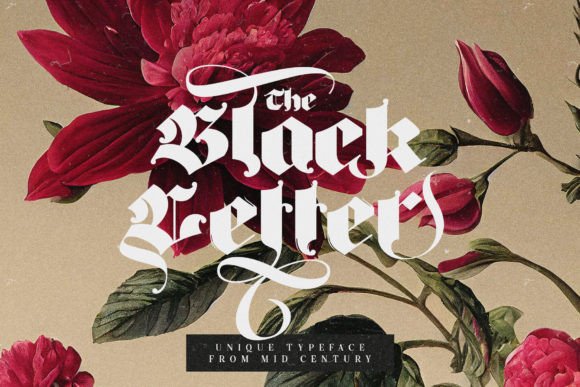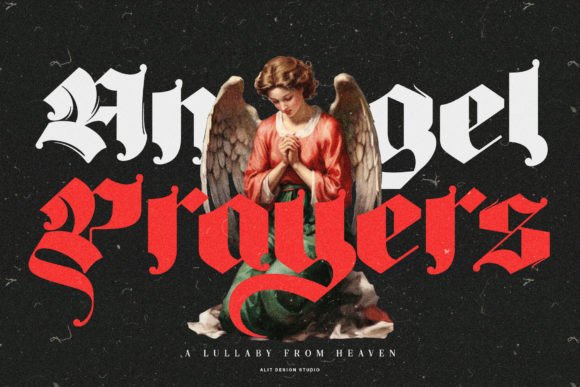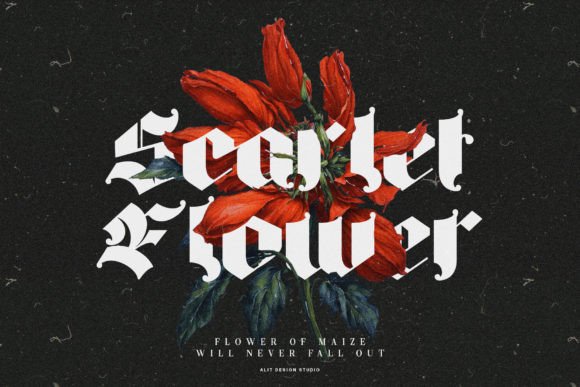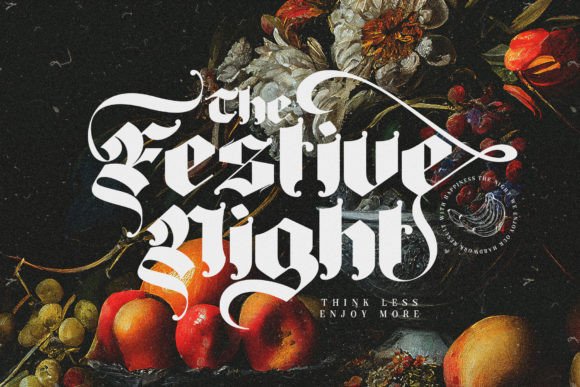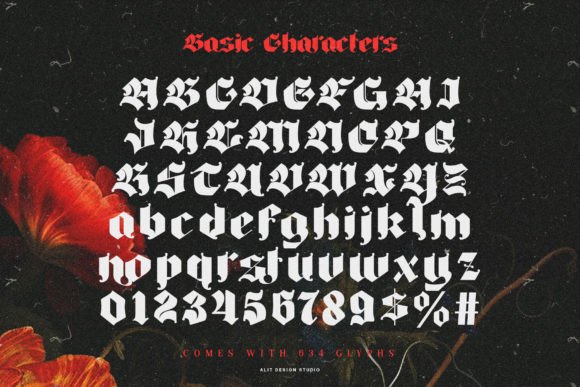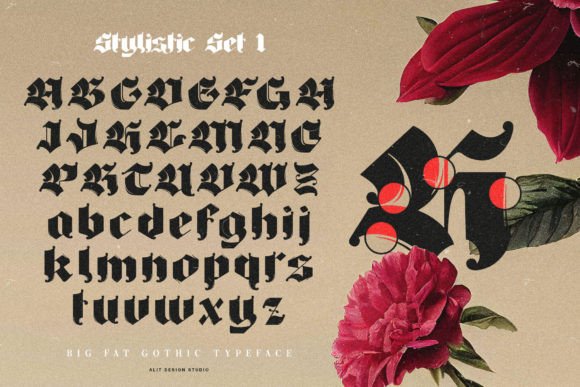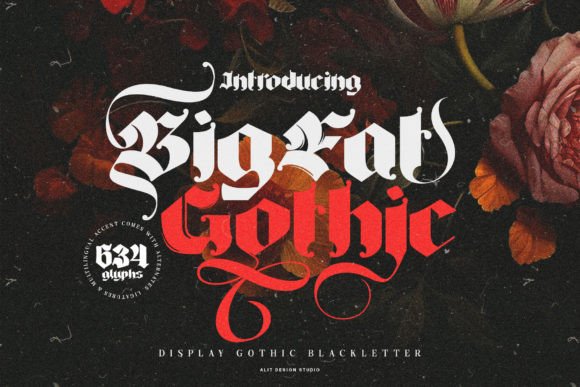
Introducing Big Fat Gothic: The Ultimate Font for Making a Statement
In the world of typography, fonts play a crucial role in conveying the tone and personality of a brand or design. When it comes to making a bold statement, few fonts can match the impact of Big Fat Gothic. This robust Blackletter font is designed to command attention, making it perfect for projects where you want your text to stand out and demand notice.
The Power of Big Fat Gothic
Big Fat Gothic is a font that exudes confidence and strength, thanks to its thick and weighty strokes. The bold and robust design of this font makes it ideal for titles, headlines, and branding materials, where you want to make a lasting impression on your audience. Whether you’re creating a logo, poster, or website, Big Fat Gothic provides the perfect combination of boldness and sophistication.
The Intricate Detailing of Big Fat Gothic
One of the standout features of Big Fat Gothic is its intricate detailing. The font’s Blackletter theme is characterized by ornate and decorative strokes, which add a touch of sophistication to any design. This level of detail ensures that your text leaves a lasting impression on your audience, making it perfect for projects where you want to convey a sense of luxury, elegance, or refinement.
Beyond Boldness: The Versatility of Big Fat Gothic
While Big Fat Gothic is undoubtedly a bold and attention-grabbing font, it’s also surprisingly versatile. The font comes packed with swashes, alternatives, and ligatures, which allow you to customize your text and add flair and personality to your designs. This level of flexibility makes Big Fat Gothic perfect for a wide range of projects, from logos and posters to websites and social media graphics.
Customization Options Galore
With Big Fat Gothic, you have the freedom to experiment with different styles and variations. The font’s swashes and alternatives allow you to add a touch of elegance or whimsy to your text, while the ligatures provide a convenient way to connect letters and create a more fluid, natural look. Whether you’re a designer, craft, or DIY enthusiast, Big Fat Gothic provides the perfect combination of creativity and flexibility.
Big Fat Gothic is a font that’s specifically designed with designers and crafters in mind. Whether you’re working on a client project or creating something for your own brand, this font provides the perfect combination of style, sophistication, and creativity. With Big Fat Gothic, you can:
- Create stunning logos and branding materials that make a lasting impression
- Design eye-catching posters and flyers that grab attention
- Develop unique and engaging website content that stands out from the crowd
- Produce beautiful and intricate craft projects, such as handmade cards and invitations
In conclusion, Big Fat Gothic is a font that’s sure to make a statement. With its bold and robust design, intricate detailing, and versatility, this font is perfect for designers, crafters, and DIY enthusiasts who want to add a touch of elegance and sophistication to their projects. Whether you’re working on a logo, poster, website, or craft project, Big Fat Gothic provides the perfect combination of style, creativity, and flexibility. So why wait? Download Big Fat Gothic today and start making a statement with your text!
Key Features of Big Fat Gothic
- Bold and robust Blackletter design
- Thick and weighty strokes for maximum impact
- Intricate detailing for added sophistication
- Packed with swashes, alternatives, and ligatures for customization
- Perfect for titles, headlines, and branding materials
- Ideal for designers, crafters, and DIY enthusiasts